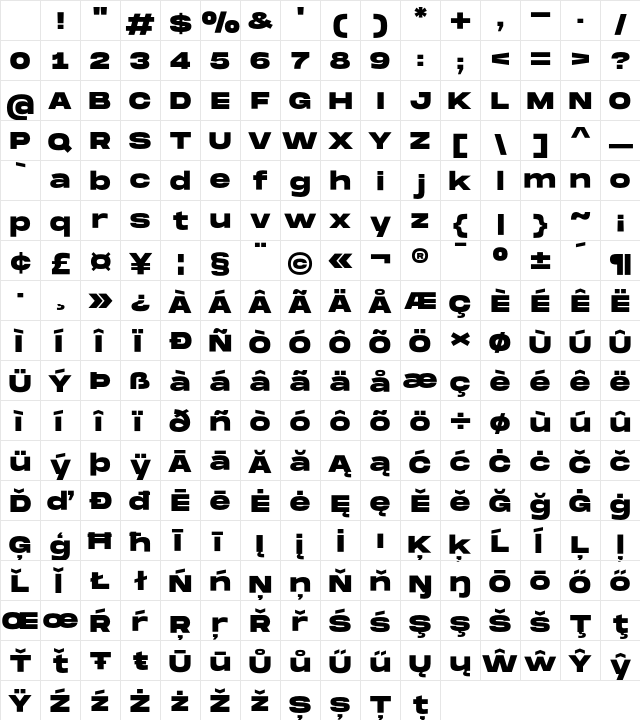
Monument Extended Ultrabold
Style: Ultrabold
Foundry: Pangram Pangram￿
Designer: Mathieu Desjardins
Monument Extended Family
Monument Extended Ultrabold
Complete Monument Extended Ultrabold glyph index. Displaying only characters natively supported by Monument Extended Ultrabold font.
Design Context for Monument Extended
Monument Extended is a composed and adaptable typeface that performs quietly and consistently across a wide range of design contexts. Its bold stroke weight gives it real presence on the page.